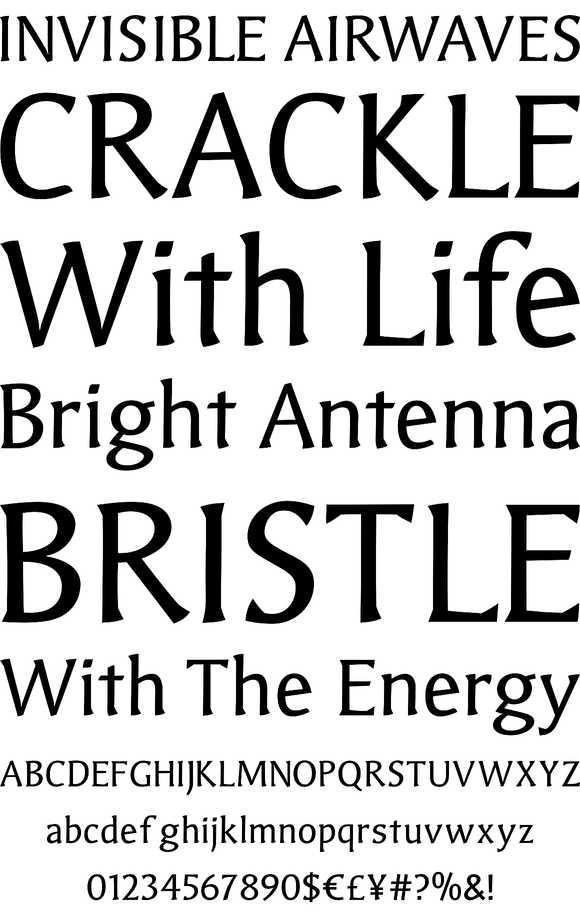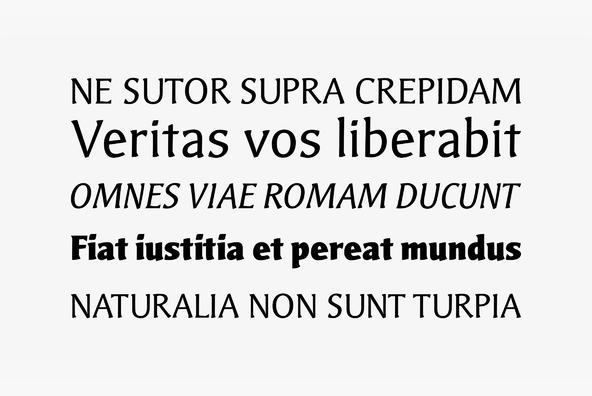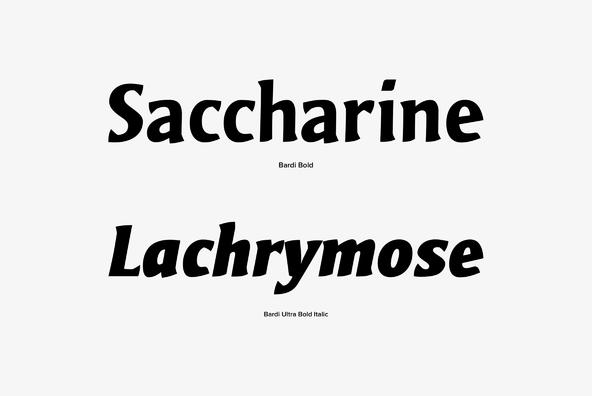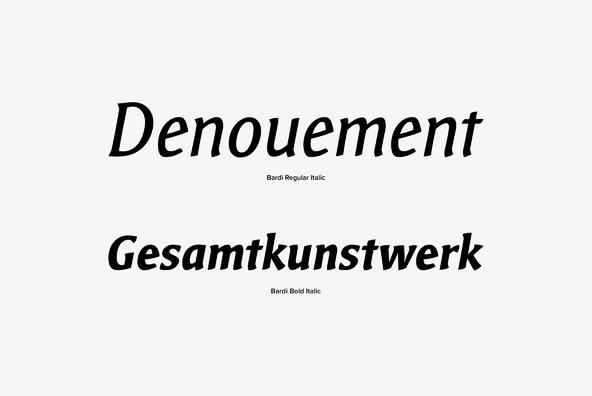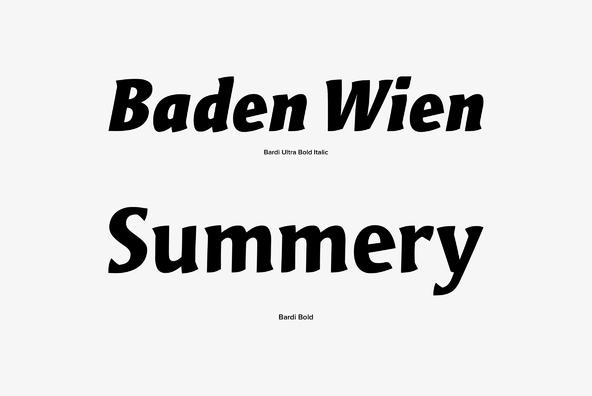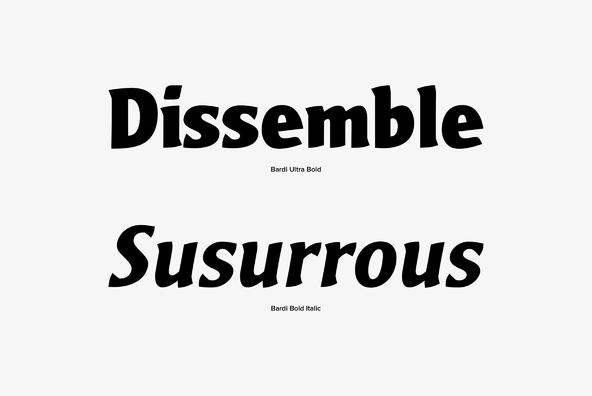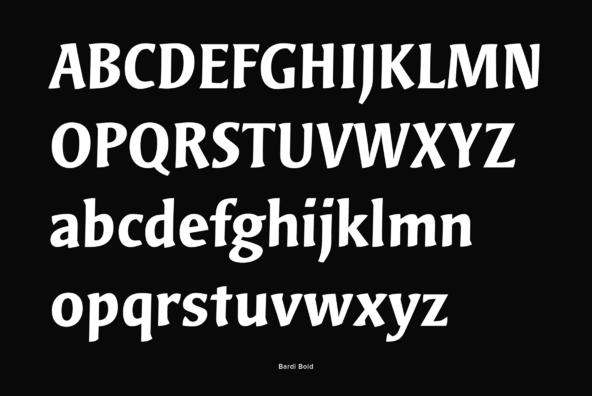
Designed by Dr. Alfred Tilp, Barde is a striking, moderately dynamic design suitable for many different typographic tasks. Its individual ductus is inspired by handwriting, however without calligraphic embellishment. There are no serifs but tiny endings w...
Designed by Dr. Alfred Tilp, Barde is a striking, moderately dynamic design suitable for many different typographic tasks. Its individual ductus is inspired by handwriting, however without calligraphic embellishment. There are no serifs but tiny endings which lead to think of wood-carving.